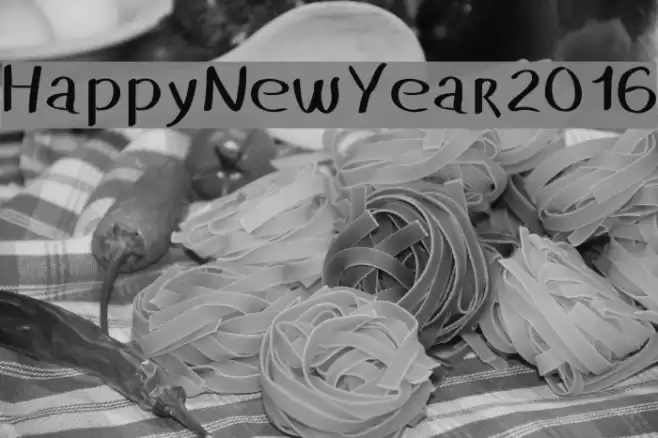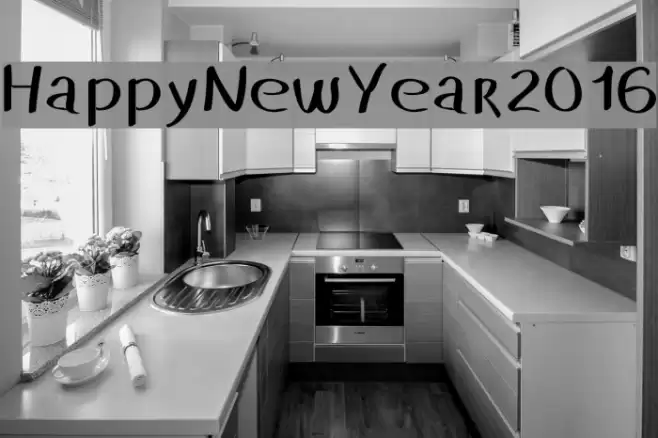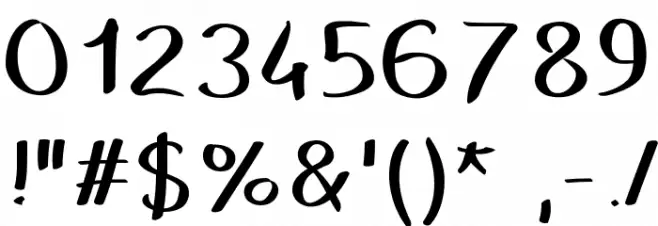
HappyNewYear2016 Font
HappyNewYear2016 Description
This font features a playful and whimsical style, characterized by its handwritten appearance. The letters have a fluid and organic form, with varying stroke thickness that adds a dynamic feel. The uppercase letters are bold and slightly slanted, while the lowercase letters maintain a consistent flow with rounded edges. The numbers and special characters follow the same playful aesthetic, making the font suitable for creative and informal designs. Its unique style can add a personal touch to any project, making it stand out with its artistic flair.
A playful, handwritten font with a whimsical and dynamic style from Handwritten fonts.
- Proposed Projects: Ideal for greeting cards, children's books, playful branding, and creative posters.
- Use Case: Headlines, Logos, Creative projects